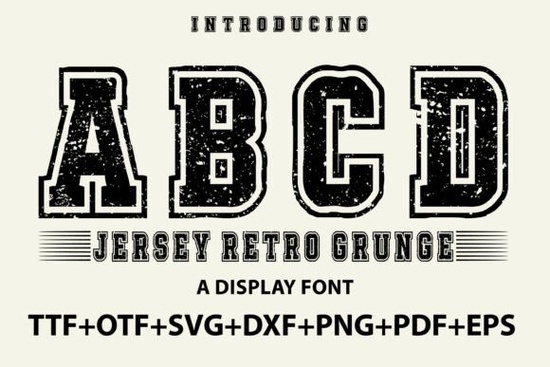
If you're designing athletic apparel, custom team gear, or bold sports-themed projects, you’ve probably searched for a font that feels authentic something with grit, energy, and vintage varsity charm. That’s where Jersey Retro Grunge Font comes in. It blends classic jersey lettering with a rough, hand-worn texture that instantly adds character without looking overdone. Whether you’re personalizing hoodies for a local league or creating mockups for your print-on-demand store, this font delivers the sporty vibe you’re after.
What makes Jersey Retro Grunge stand out for sports designs?
Unlike clean, modern display fonts, Jersey Retro Grunge leans into imperfection. Its edges are slightly distressed, mimicking the look of screen-printed letters that have seen a few seasons of wear. This gives your designs a lived-in, authentic feel perfect for football tees, gym bags, or championship banners. The uppercase-only format keeps it bold and readable from a distance, which is essential for athletic branding.
It also works seamlessly across popular crafting platforms like Cricut Design Space and Silhouette Studio. If you cut vinyl or heat-transfer material for custom jerseys, you’ll appreciate how cleanly the glyphs translate to physical media. No unexpected gaps or jagged lines just consistent, rugged letterforms that hold up under pressure (and washing machines).
Who should use this font?
This typeface is especially useful for:
- Print-on-demand sellers creating niche sports merchandise
- Small business owners running local team apparel shops
- Crafters making personalized gifts for athletes or fans
- Graphic designers working on event posters, social graphics, or merch for gyms and schools
If your project needs to convey energy, nostalgia, or team spirit, Jersey Retro Grunge offers a shortcut to that aesthetic without requiring extra textures or overlays.
How does it compare to other display fonts?
Not all retro fonts carry the same weight. For example, GotJack leans more playful and cartoonish, while Lovers Barbie brings a bubbly, feminine flair great for different moods, but not ideal for sports. On the other hand, Wildberry has a hand-lettered boho vibe, and Noby offers minimalist geometric shapes. None of these capture the specific blend of varsity tradition and grunge edge that Jersey Retro Grunge nails.
You can explore alternatives like these if your project shifts tone but for authentic athletic design, this font remains focused and purpose-built.
While it doesn’t include lowercase letters (typical for jersey-style fonts), that actually helps maintain visual consistency in sports contexts, where caps dominate anyway. The simplicity makes it easy to pair with clean sans-serifs for secondary text if needed.
Tips for using it effectively
To get the most out of Jersey Retro Grunge:
- Avoid over-layering: Its texture already adds visual interest, so skip extra drop shadows or bevels unless absolutely necessary.
- Use generous spacing: Tight kerning can make the rough edges blend together. Slight letter-spacing improves legibility.
- Stick to high-contrast color combos: Think white on navy, red on black, or gold on dark green classic team palettes that let the font shine.
- Test print early: Especially for DTG or sublimation, run a small swatch to ensure the grunge detail holds up at your intended size.
And remember you don’t need to limit it to just jerseys. It works well on water bottles, locker tags, event tickets, or even digital scoreboards for local tournaments.
Ready to try it? Head to its dedicated page for previews and licensing details: Jersey Retro Grunge Font.
Before you start your next project…
Ask yourself:
- Is my audience expecting a rugged, athletic look?
- Will this be viewed from a distance (like on a field or stage)?
- Do I need compatibility with cutting machines or print services?